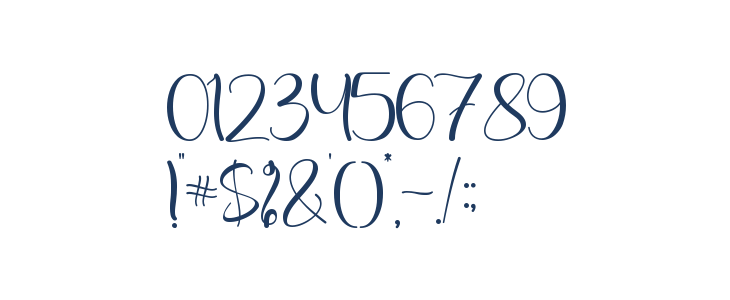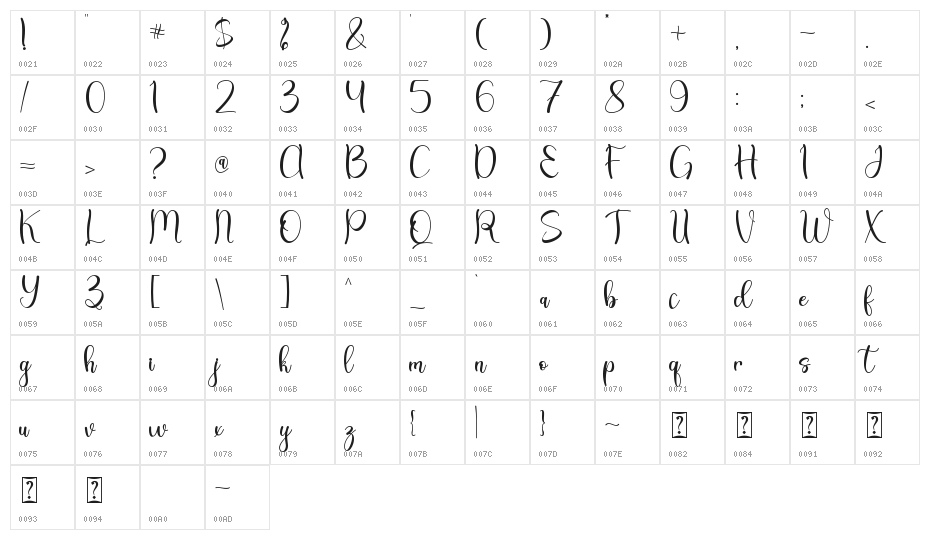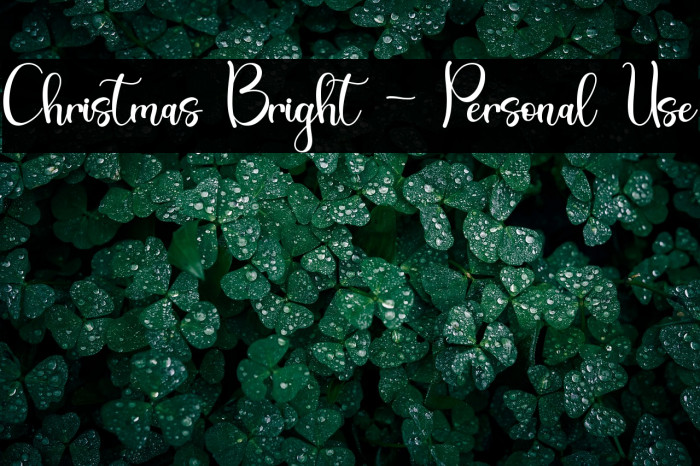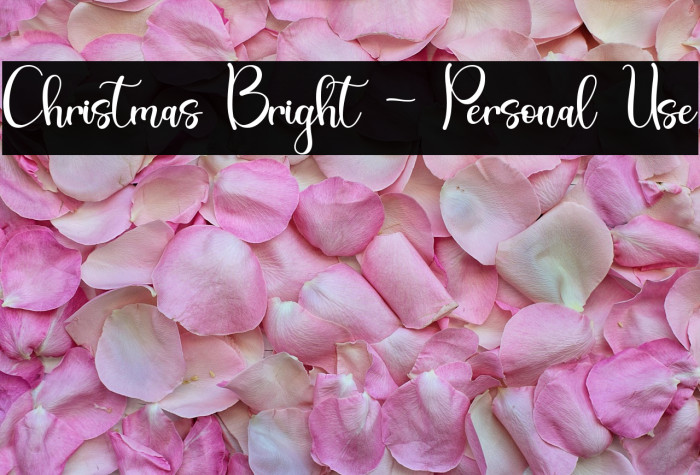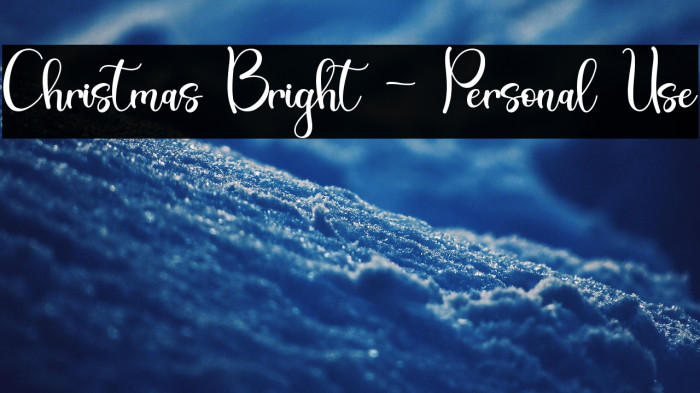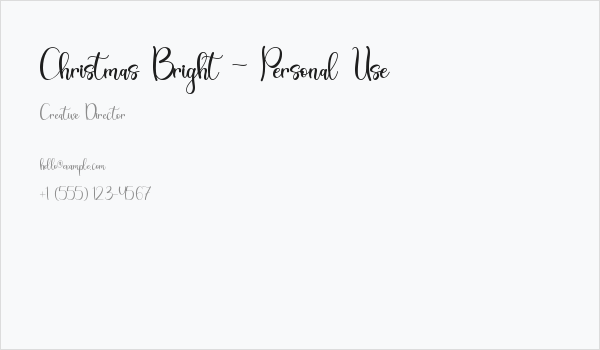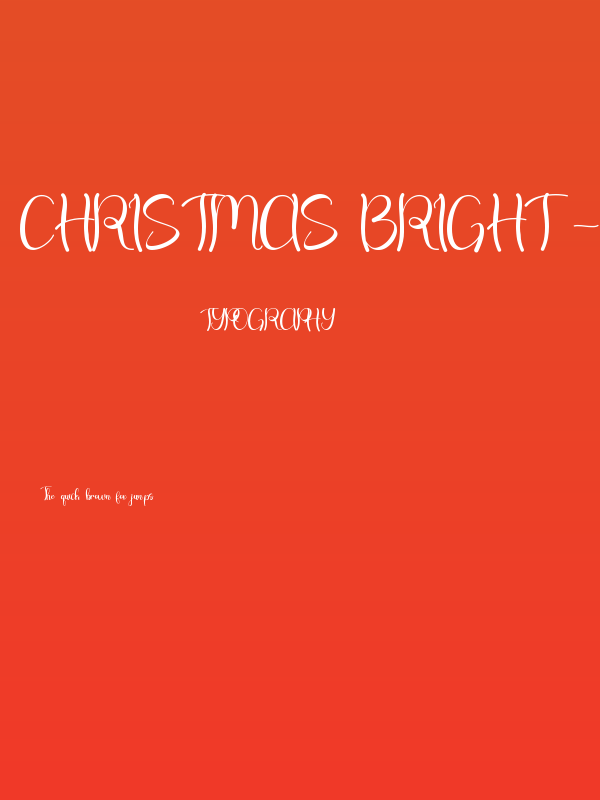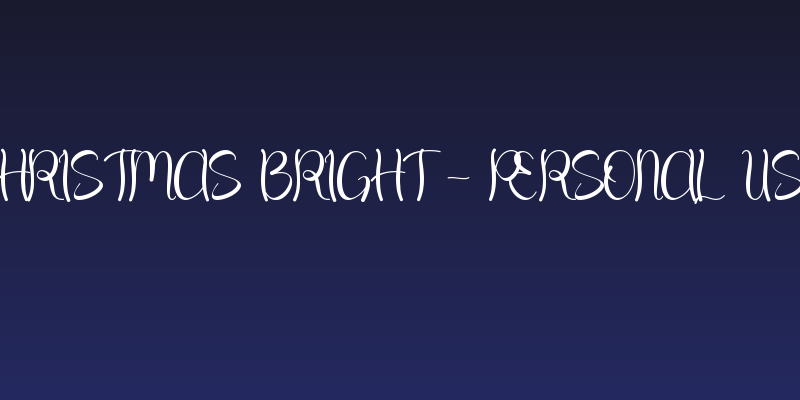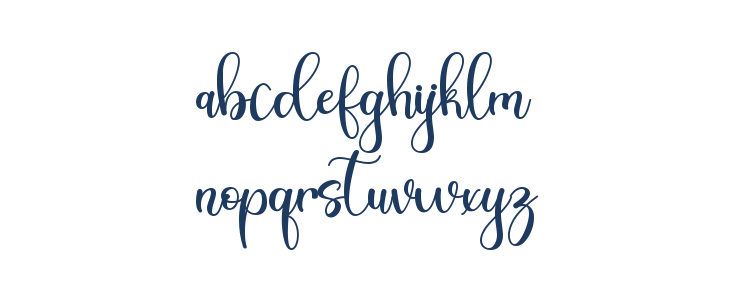
Christmas Bright - Personal Use Font
Christmas Bright - Personal Use Description
This font exudes a festive and playful charm, characterized by its flowing, cursive style that mimics elegant handwriting. The uppercase letters are tall and slender, with graceful loops and swirls that add a touch of whimsy. The lowercase letters maintain a consistent style, with smooth curves and a slightly more compact form. Numbers and special characters are designed to complement the letters, featuring similar decorative elements. The overall appearance is lively and dynamic, making it ideal for creating a joyful and celebratory atmosphere. Its unique style captures the essence of holiday cheer, making it perfect for seasonal projects.
| Proposed Projects | Ideal for Christmas cards, holiday invitations, festive banners, and decorative signage. |